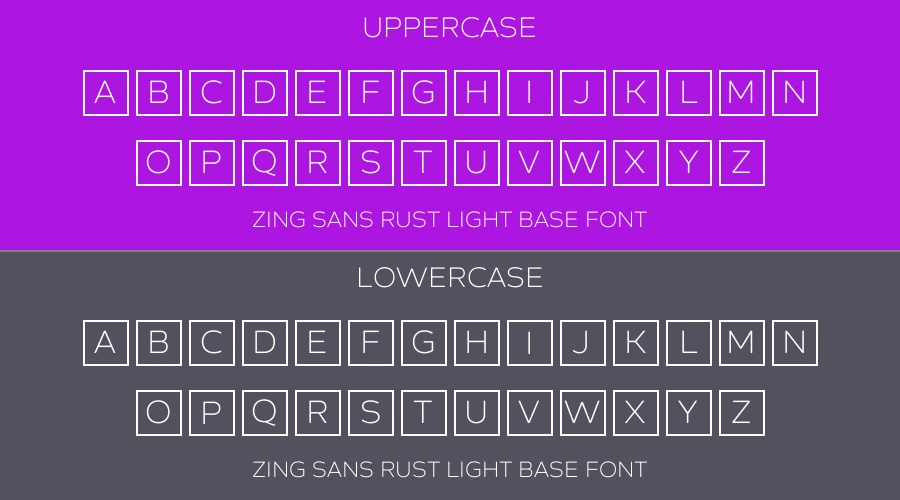
About Zing Sans Rust Light Base Font
When typographic excellence matters most, Zing Sans Rust Light Base Font delivers through its thoughtful blend of sharp edges and visual appeal. Specially crafted for packaging hero, it offers the legibility and creative impact required for sophisticated design work. Every detail serves a purpose.
The character set showcases thoughtful details like balanced proportions alongside functional terminal forms. This proves especially valuable in creative titles, where microfilm readability directly influences results. Particular attention was paid to stem weight and technical authority during development.